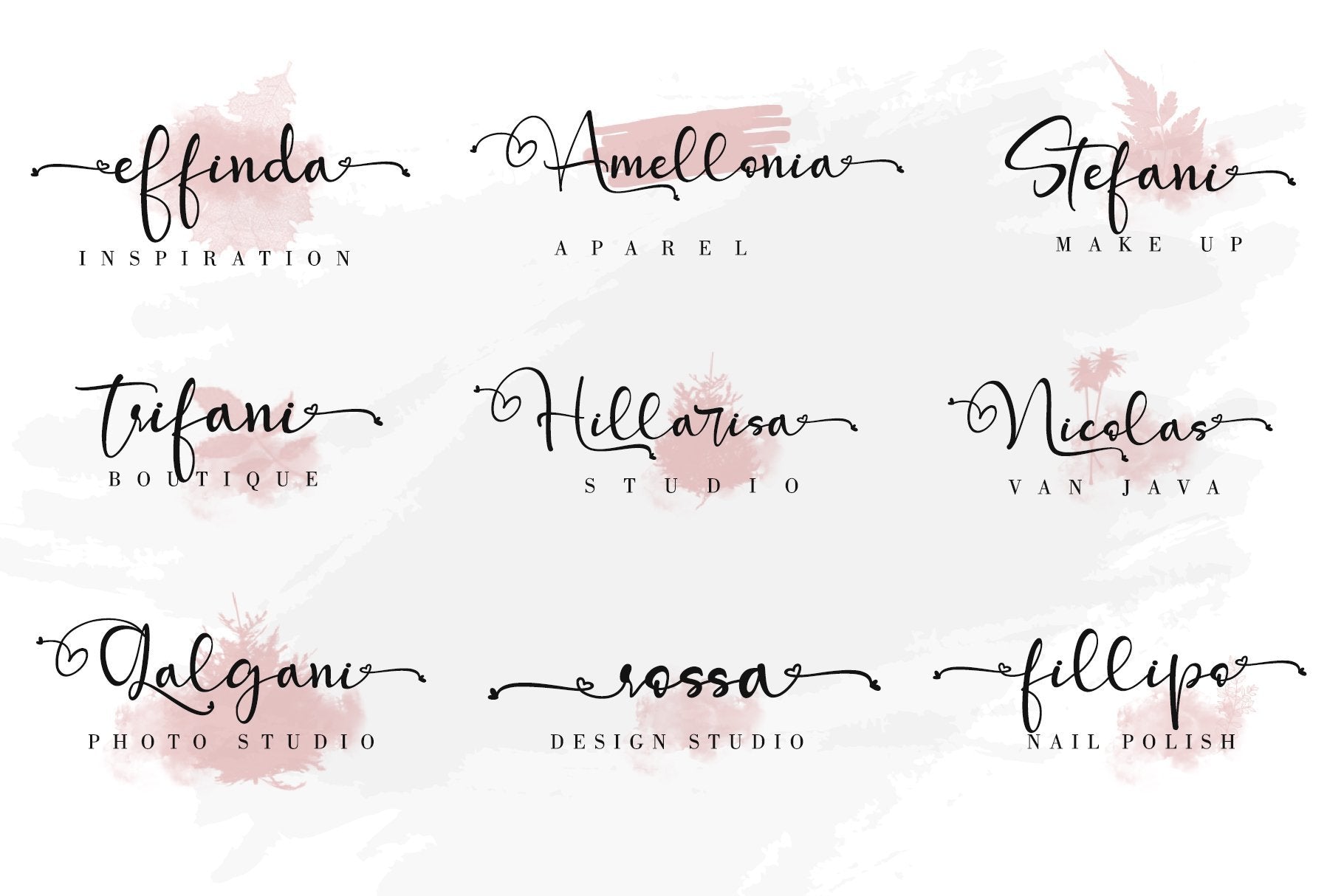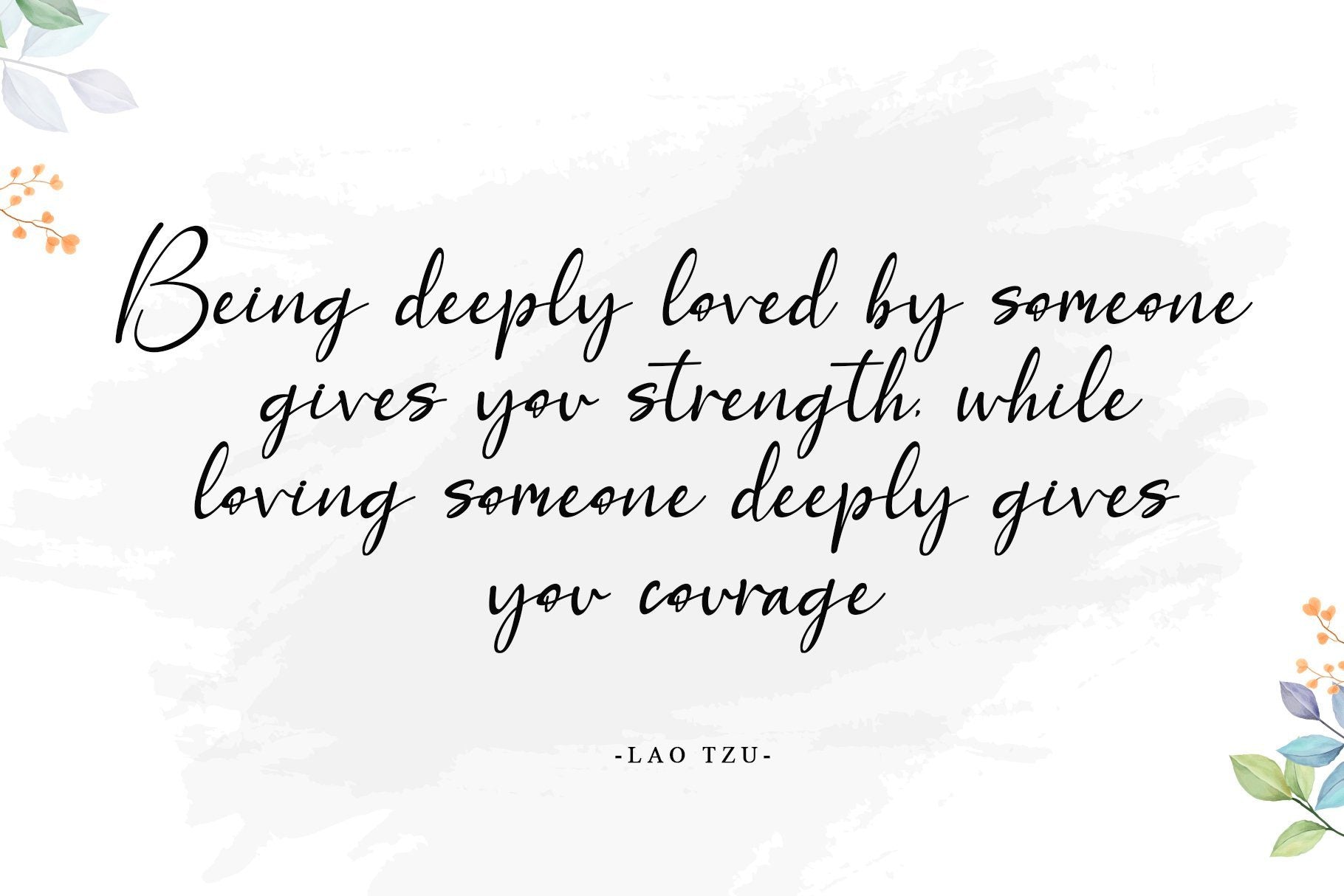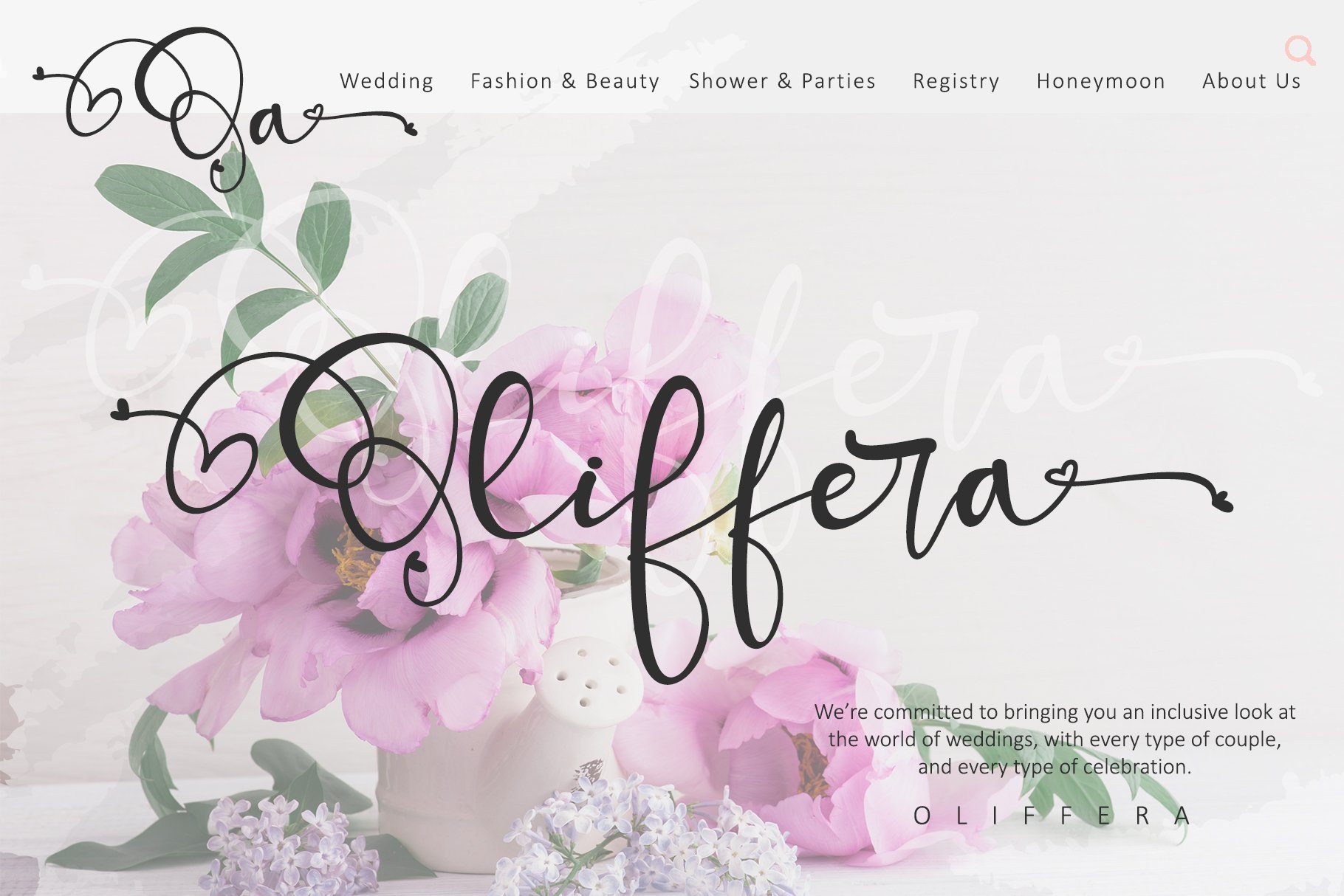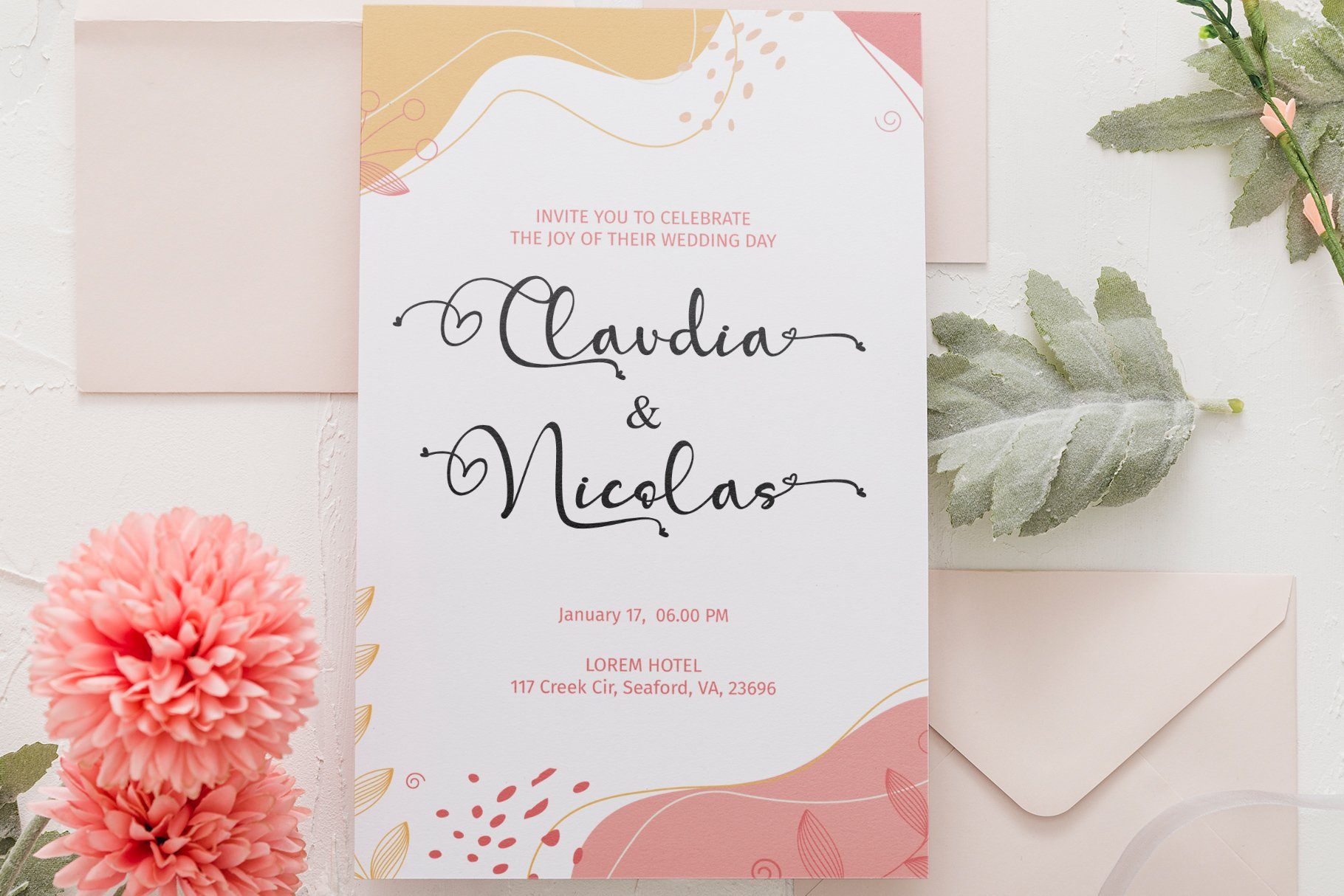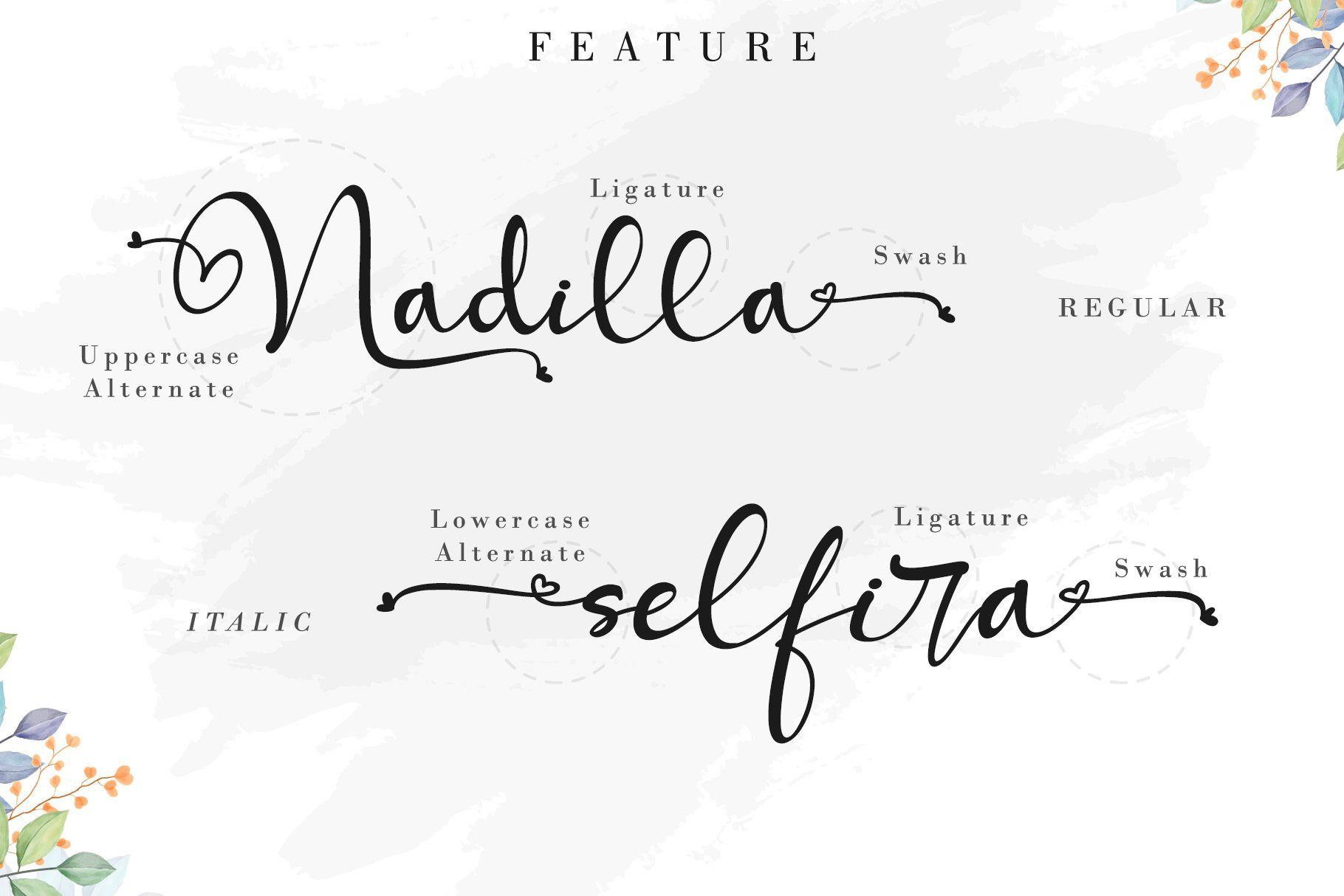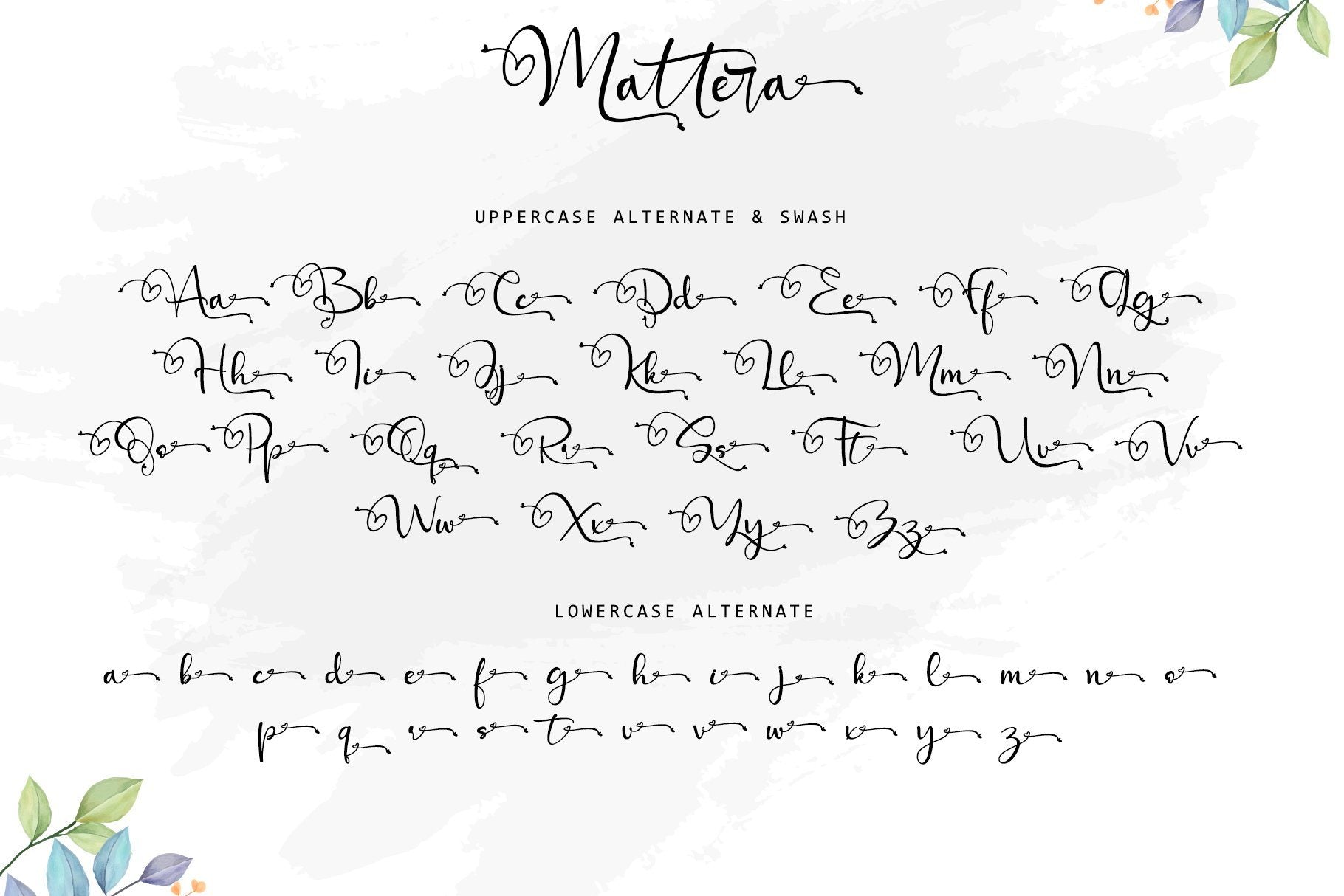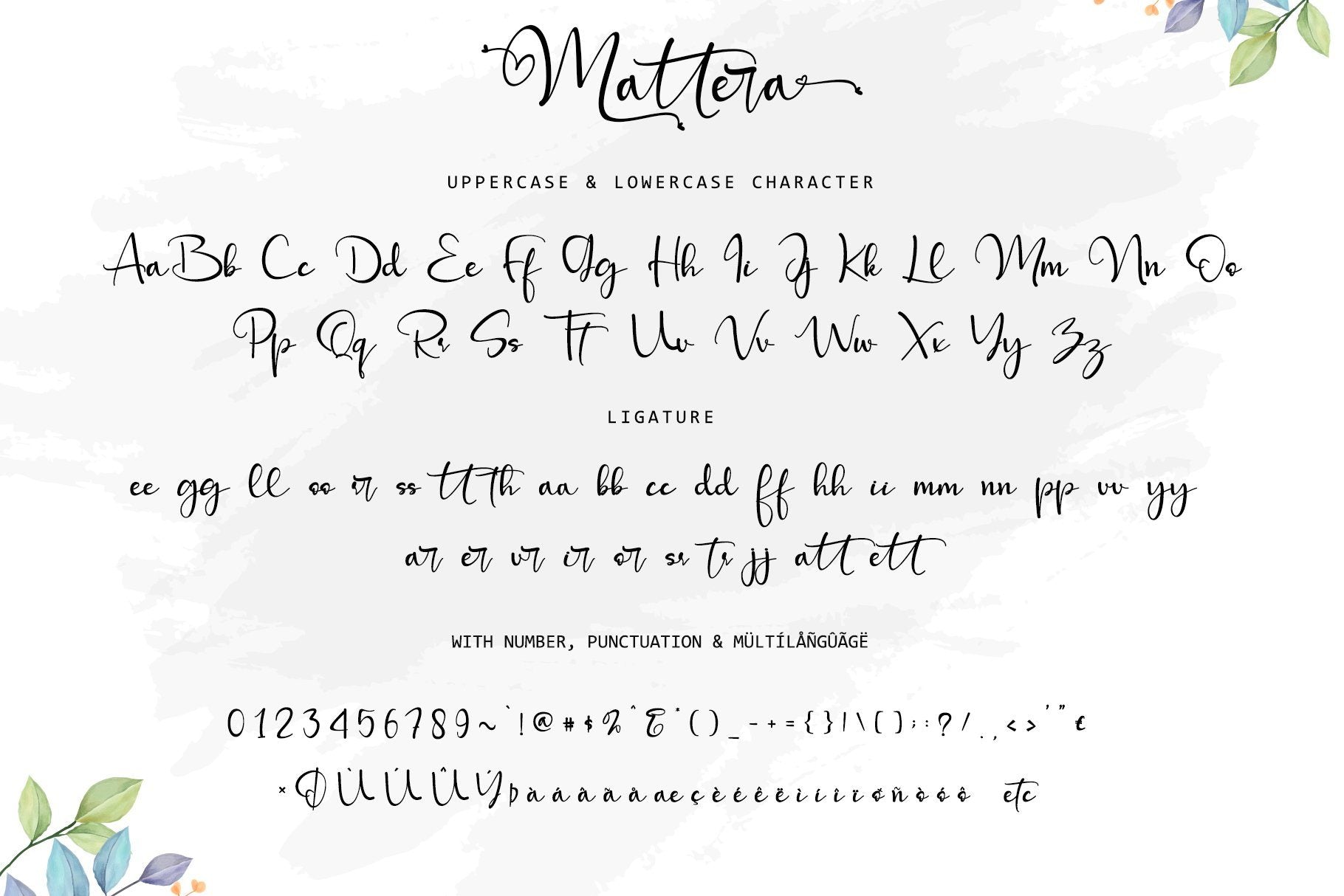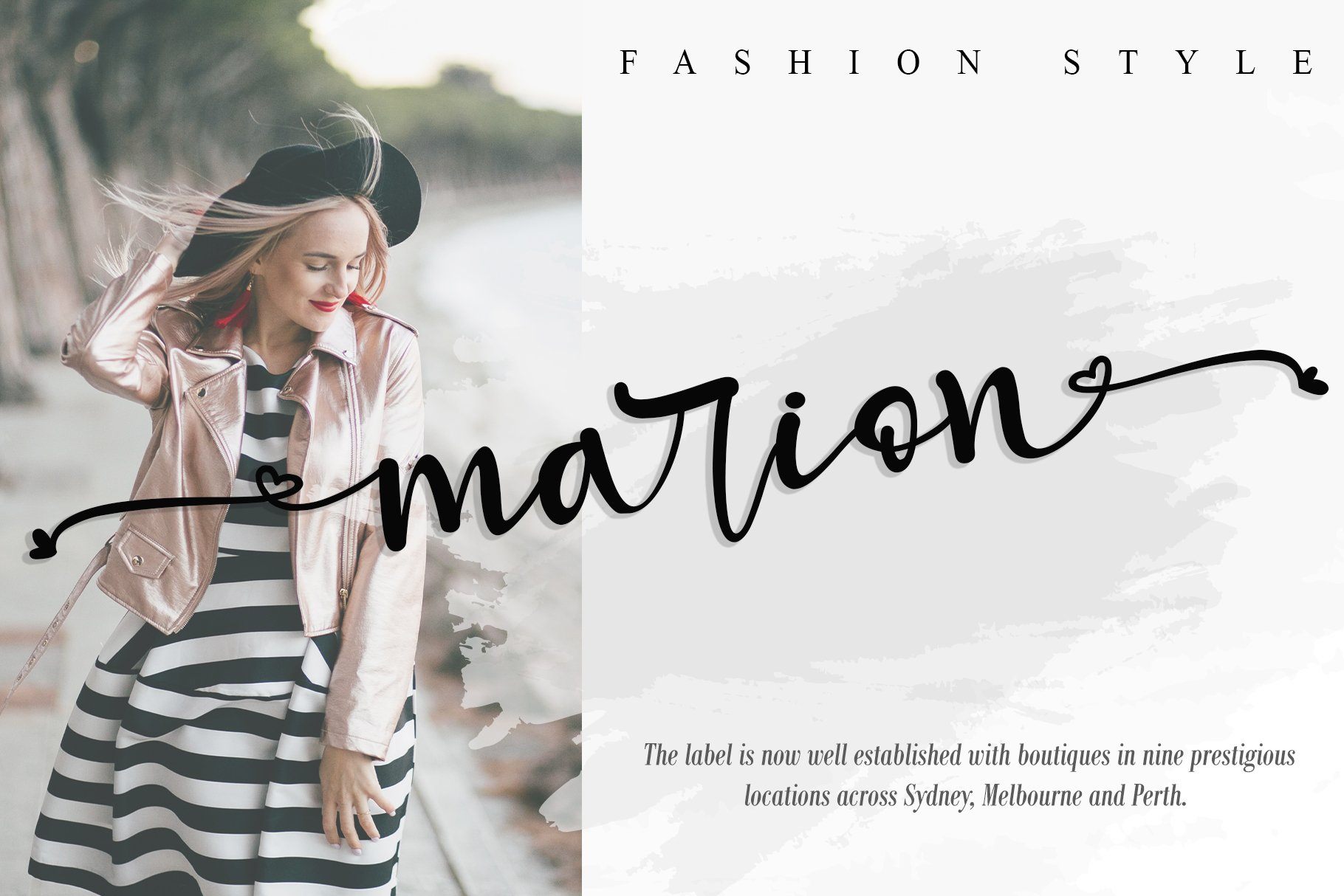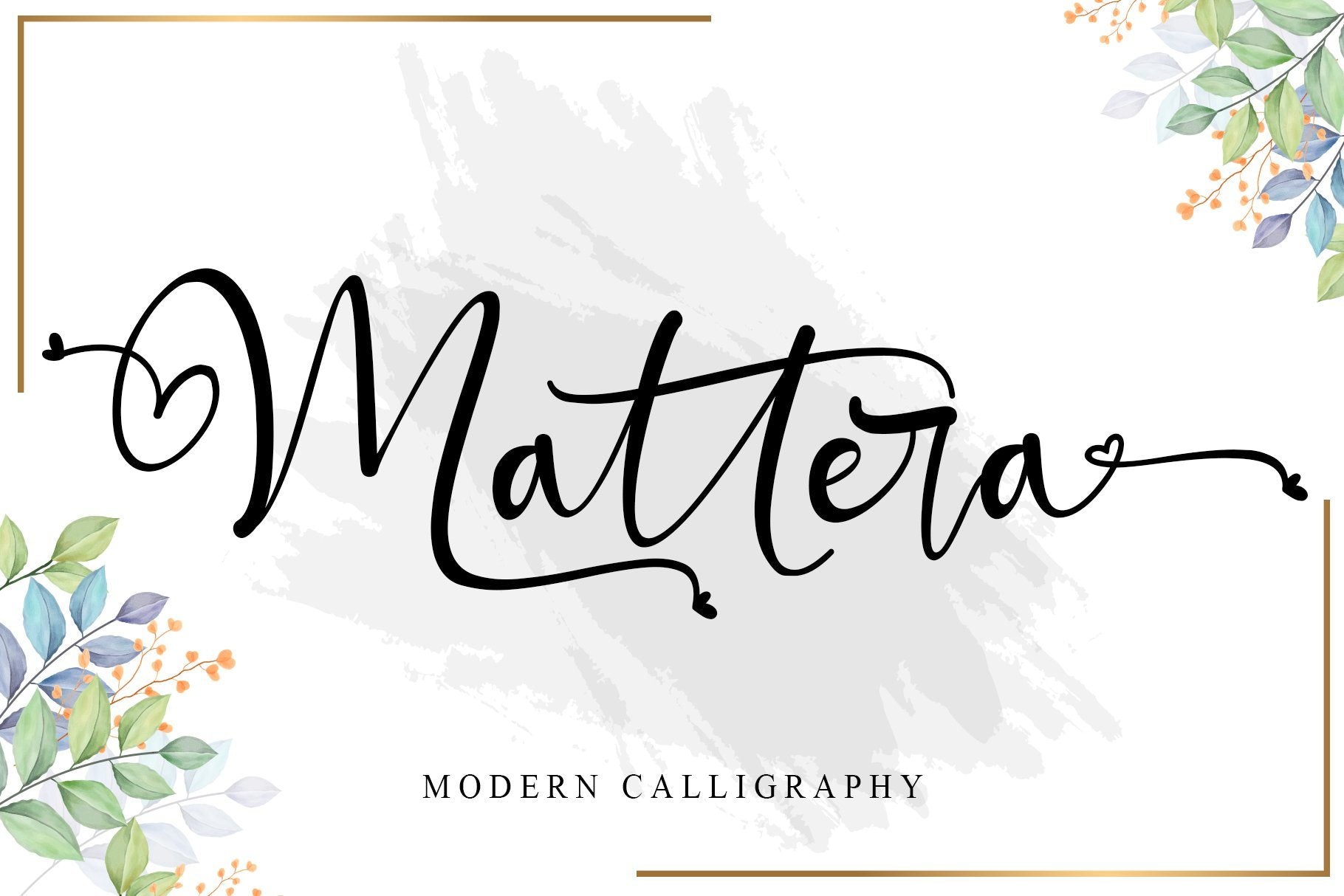
Mattera
About Mattera
Mattera is a minimalist script font designed with an incredibly modern and beautiful feel. This font is PUA encoded which means you can access all of the glyphs and swashes with ease! It features a varying baseline, smooth lines, gorgeous glyphs, and stunning alternates. Mattera will look outstanding in any context, whether it’s being used on busy backgrounds or as a standalone headline! What’s Included : Mattera (TTF, OTF, WOFF) Mattera Italic (TTF, OTF, WOFF) Works both on Mac & PC Simple installations Support silhouette Many features: Uppercase Alternate, Lowercase Alternate, Swash, and Ligature Accessible in the Adobe Illustrator, Adobe Photoshop, Adobe InDesign, CorelDraw, even work on Microsoft Word. Support multilingual; ä ö ü Ä Ö Ü ß ¿ ¡ To access the alternate glyphs, you need a program that supports OpenType features such as Adobe Illustrator CS, Adobe Photoshop CC, Adobe Indesign, and CorelDraw. More information about how to access alternate glyphs, check out this link  ( http://goo.gl/ZT7PqK ) This font is PUA encoded which means you can access all of the playful glyphs and swashes with ease! It also features a wealth of special features including alternate glyphs and ligatures. To stay up to date for my latest job, follow me and let’s be friends because there will be many promos. Our other products: BESTSELLER WELLDONE MILEADILA BEAUTIFUL KISSES ANGELIN GAMOS HERTINA JENNIE ANTIKA AURORA BLACK PINK SIGNATURE California Street BESTOWENS FAMILY